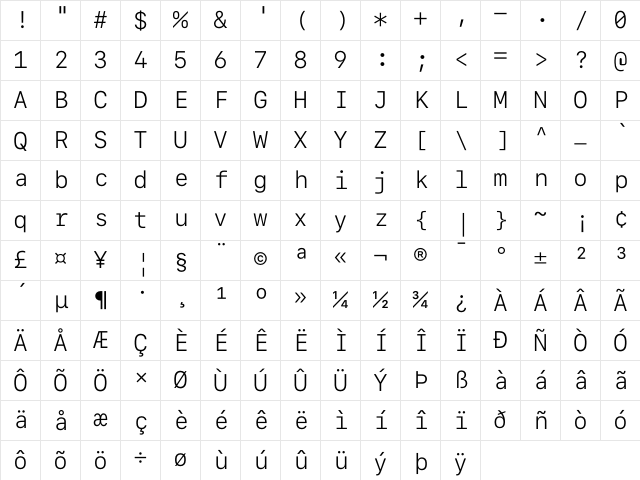
SF Mono Light
Foundry: Apple Inc.
Designer: Apple Inc.
Design Context for SF Mono
SF Mono uses fixed-width spacing throughout, giving it the structured, systematic character associated with coding environments and technical documentation. Its slender proportions lend an understated elegance to any composition.
Pro Tip: Use SF Mono with slightly increased line-height for extended reading - fixed-width spacing can feel dense in longer passages without extra breathing room.